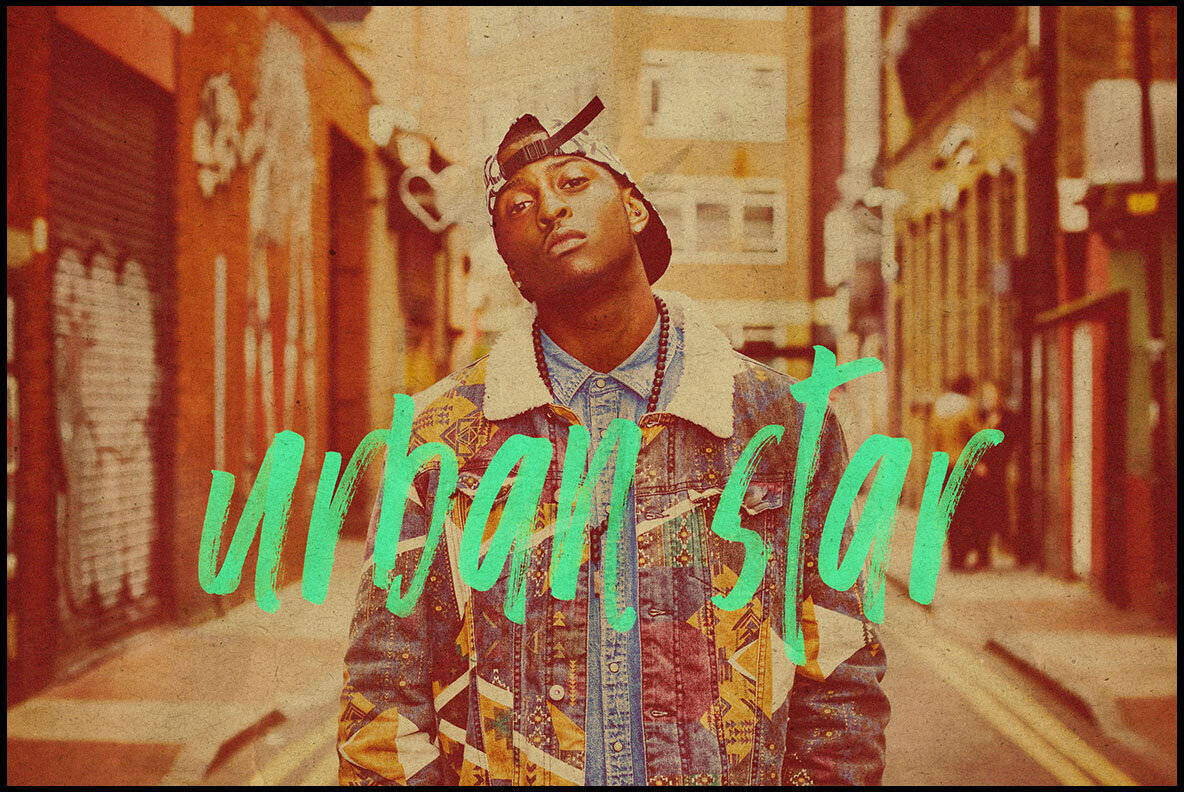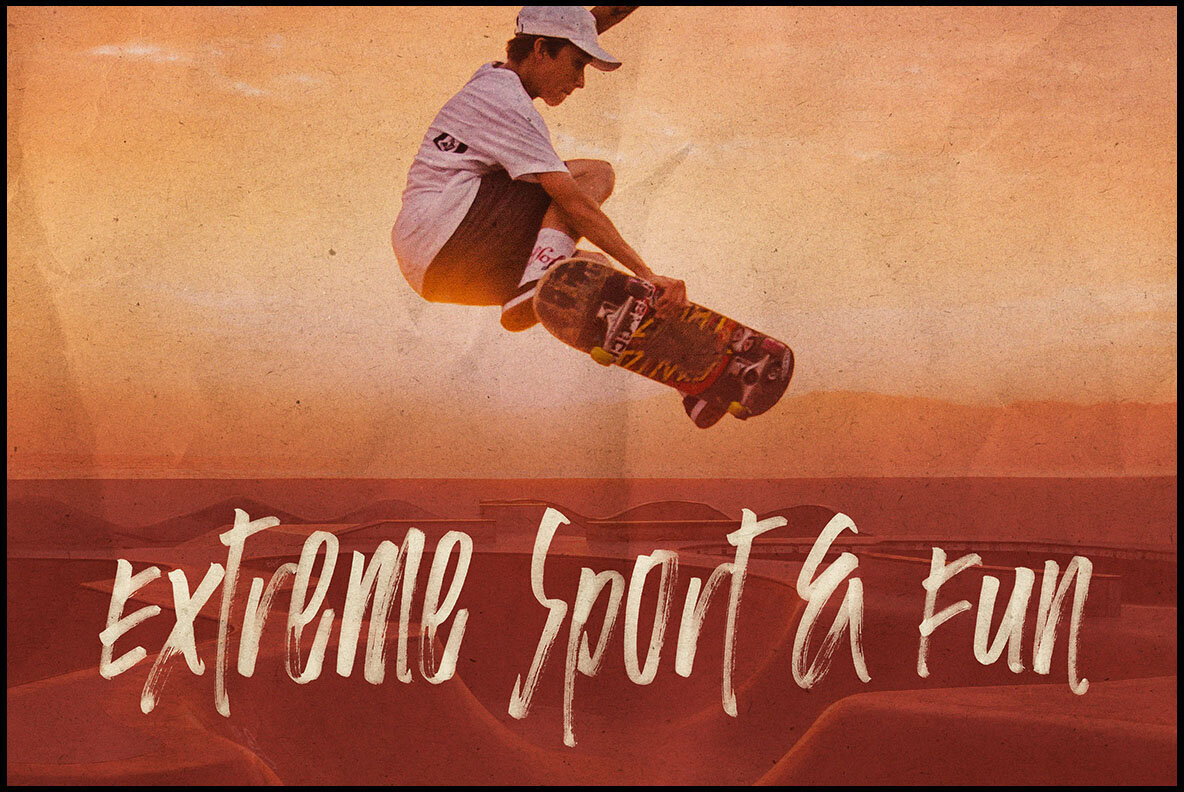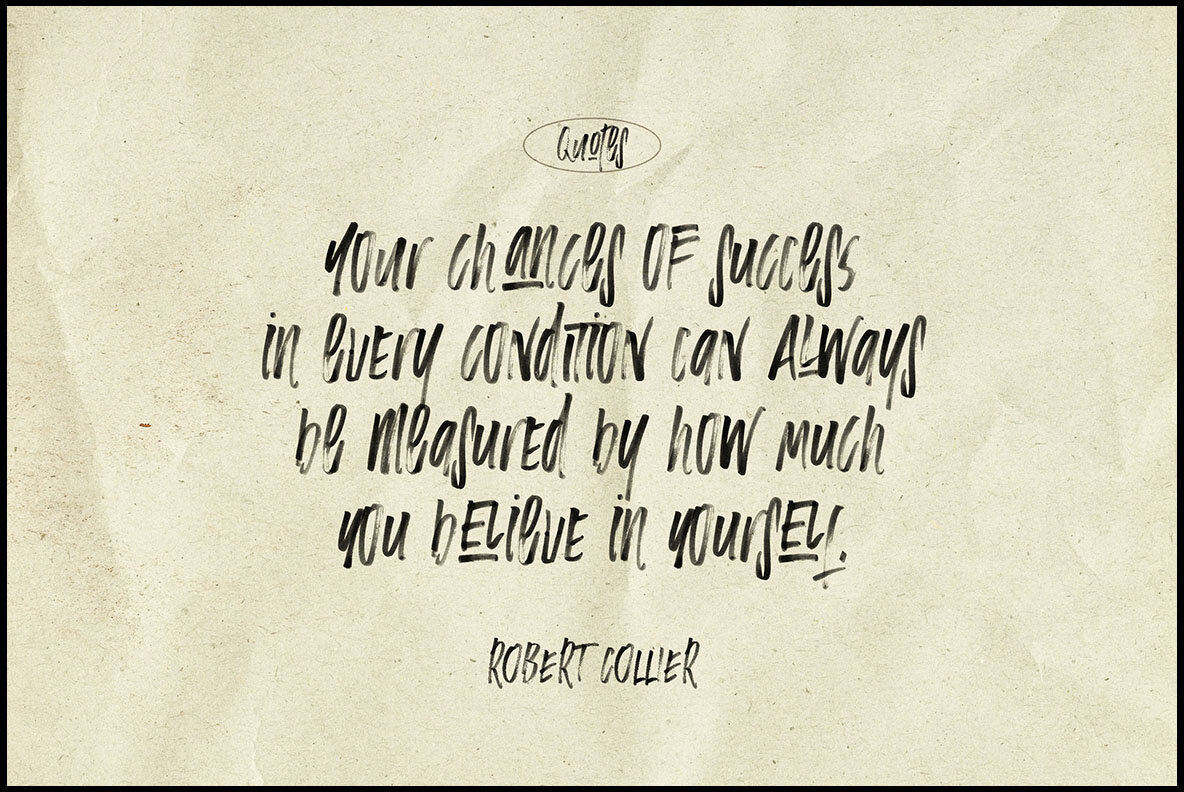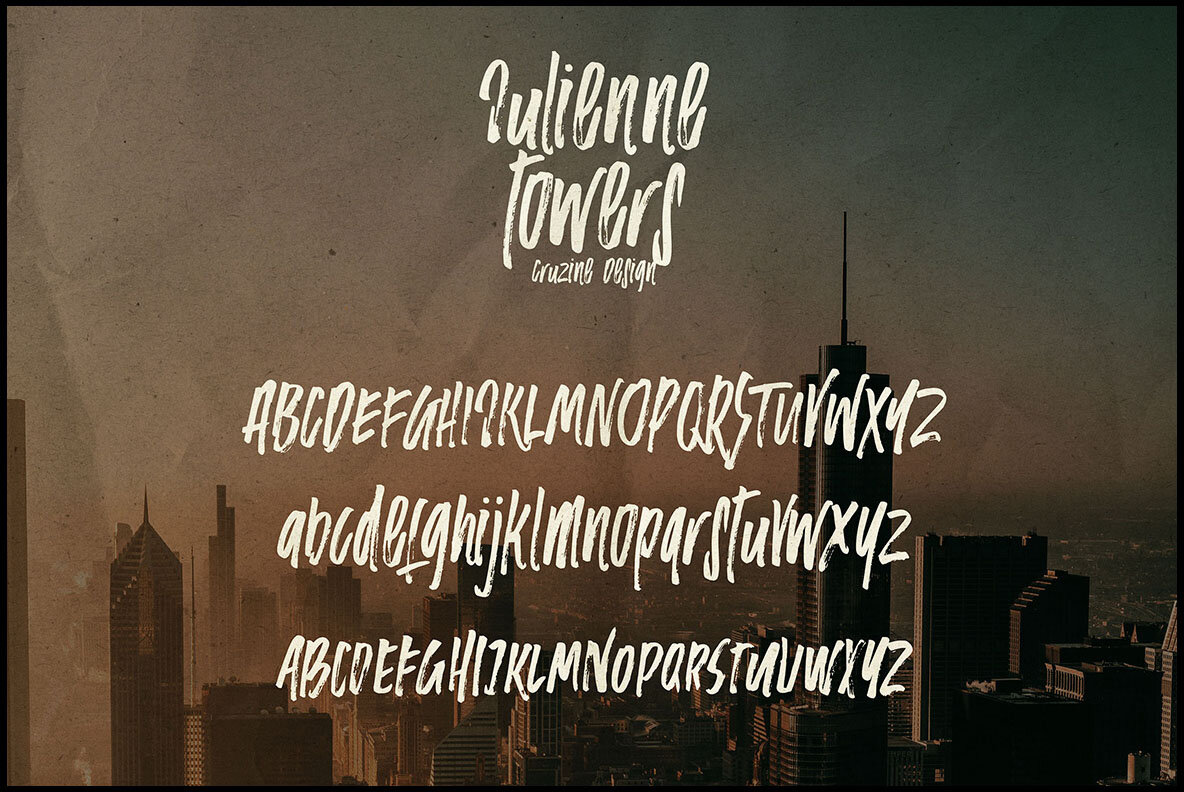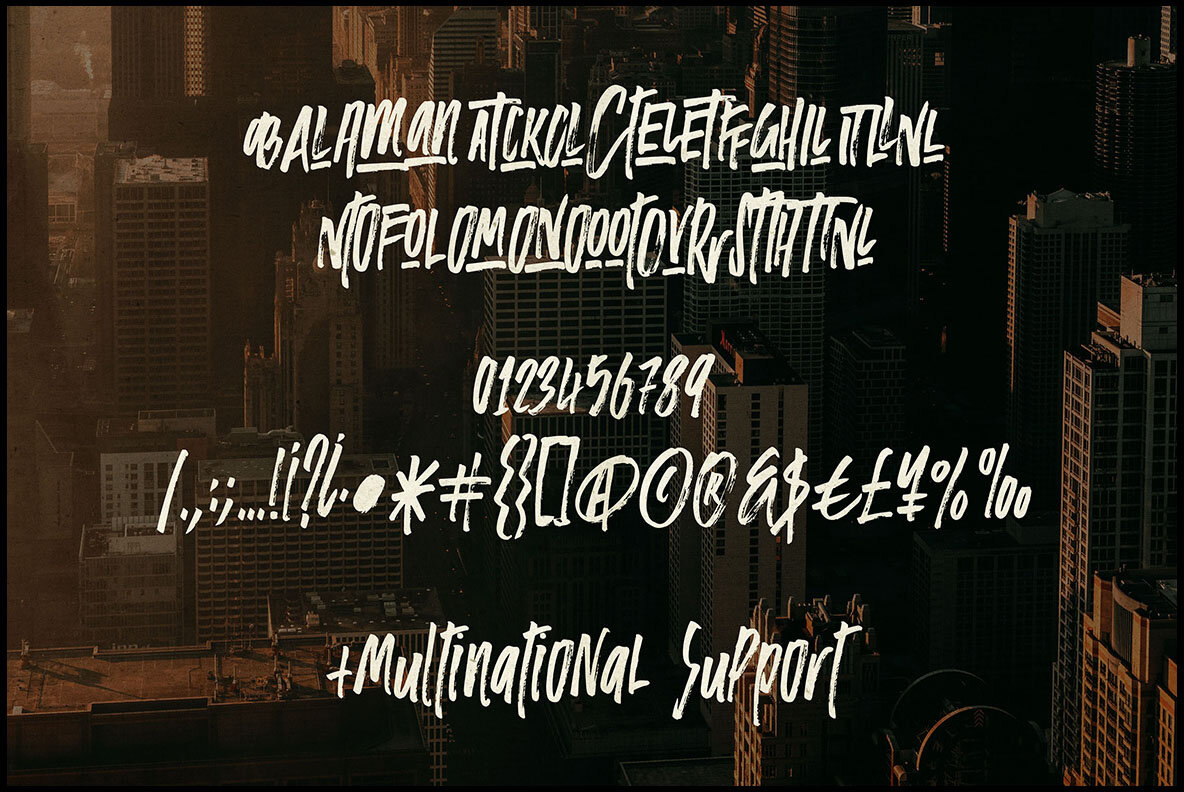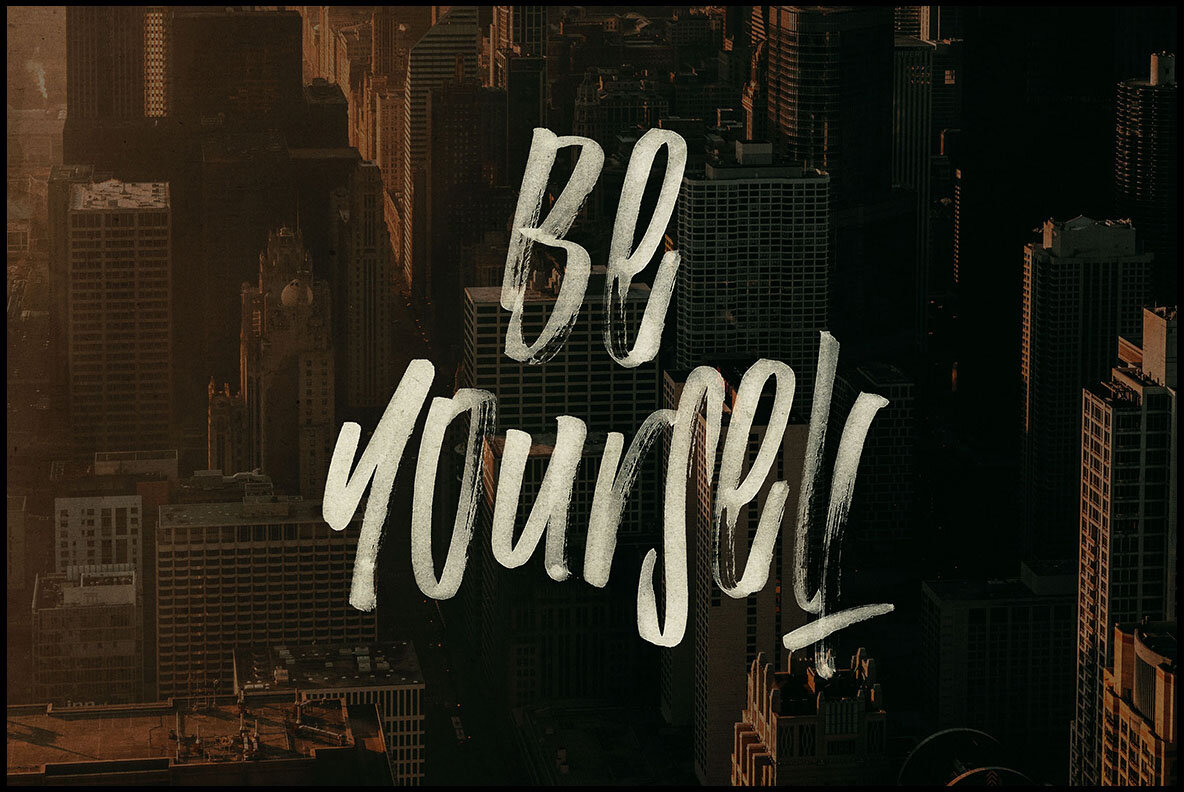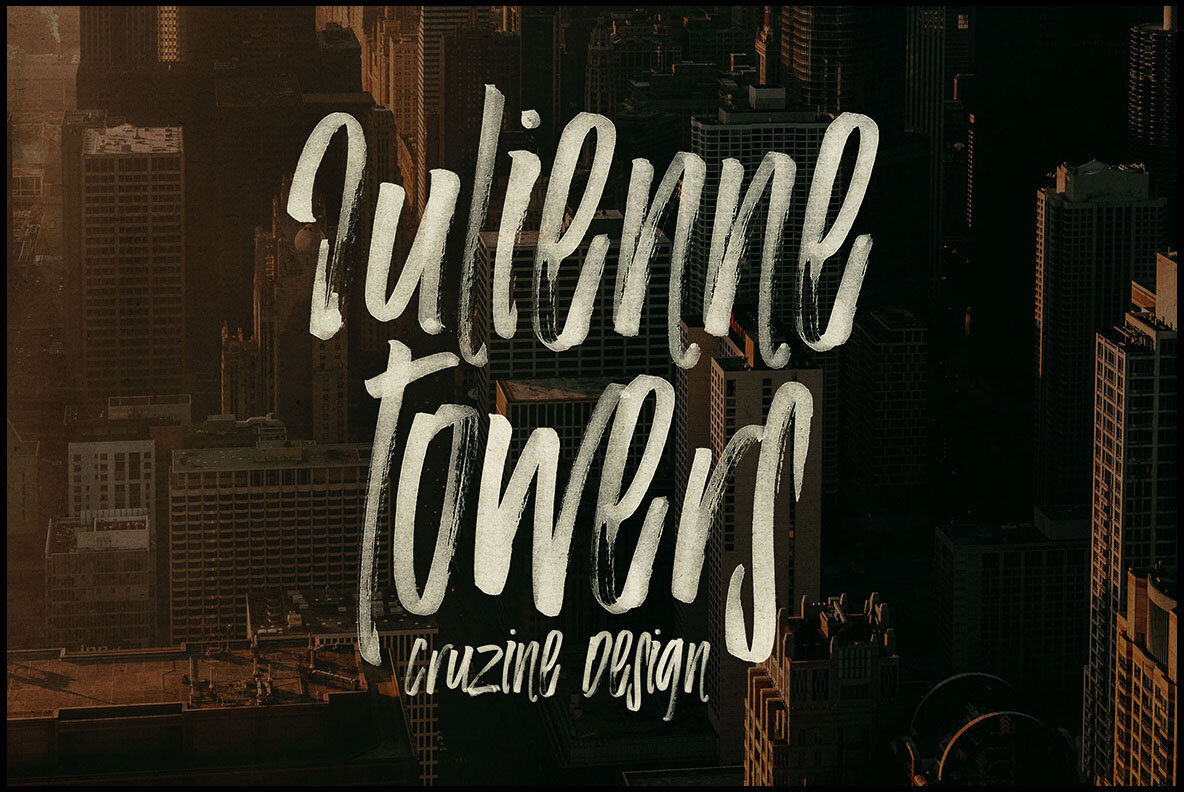
Julienne Towers Font
Julienne Towers by Peter Olexa is a script display font featuring a unique blend of brush, rough, elegant, and grunge styles. Handwritten with an organic watercolor brush, it is perfect for adding a touch of creativity and artistry to your grunge, urban, or artistic projects.Julienne Towers: A Brush Script Display Font